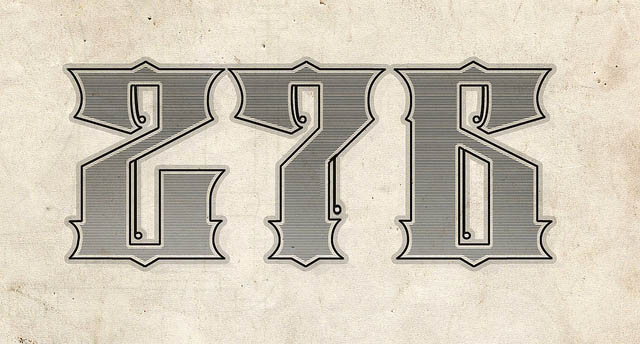
276ccm: My work and progress..
hehe I wont shoot Anthony! :-) Feedback like this is a good way for me to learn..
I was just looking at it and was thinking it looked a little strange too.. is it the area in the sircle you are meaning is wrong? It should probably follow the lines at the 2 if I understand you correctly?
Maybe a bit more like this:
The area with the circle should have a horizontal bar to match the other two 7's in the piece or the other two 7's should be changed to having no bar.
The number "2" and number "6" might look better if there curves were mirror images, if that makes sense.
Hmm.. I´m not quite sure what you mean about "a horizontal bar", but it´s probably me, struggling a bit with english terms.. as Norwegian is my main language :) But I´ll try to figure it out. Really appreciate the feedback tho! :-)
When I made the "6", I copied the "2" and just flipped it horizontally and made it into a 6.. except the litle detail strokes.
Here is an example of a "seven" and a "continental seven"
In your piece you have changed one of the continental sevens so it looks out of balance.
Ah I understand what you mean now! Thanks a lot for your time and explanation! I´ll look into it :)
If I understood you correctly this time, it´ll be a little more like this? Not sure I´ll keep it exactly like this, but did a quick change to see if I understood :-)
That's exactly what I was trying to explain :D
The changes you've made to the seven make it look less like a 7. What about removing the spur. Something like this.
To me it has more balance... and retains the 7 look.
Thanks for the feedback! I´ll do some testing when more of the "Sanborn" project is illustrated to see the over all look of the piece..The horizontal line I did in the previous 7 was maybe a little much, but just wanted to see if I understood it right :-) Not sure I´ll keep it exactly like that. When all this is done, it would have been cool to try to make it into a font too.. a good friend got the Fontographer and we just put in the numbers to test.
You are a lucky man. The guys really helped you with this one and it is even beter then it was originally.
This back and forth sliding with a design is how we can learn the best to see what works or not.
Defiantly and I´m very grateful for the help, tips and suggestions I get to improve my skills and work.. So far I´m still liking the "7" with the horizontal line over it, but not yet finished with the final design so I really appreciate all the feedback to see what works better :-)